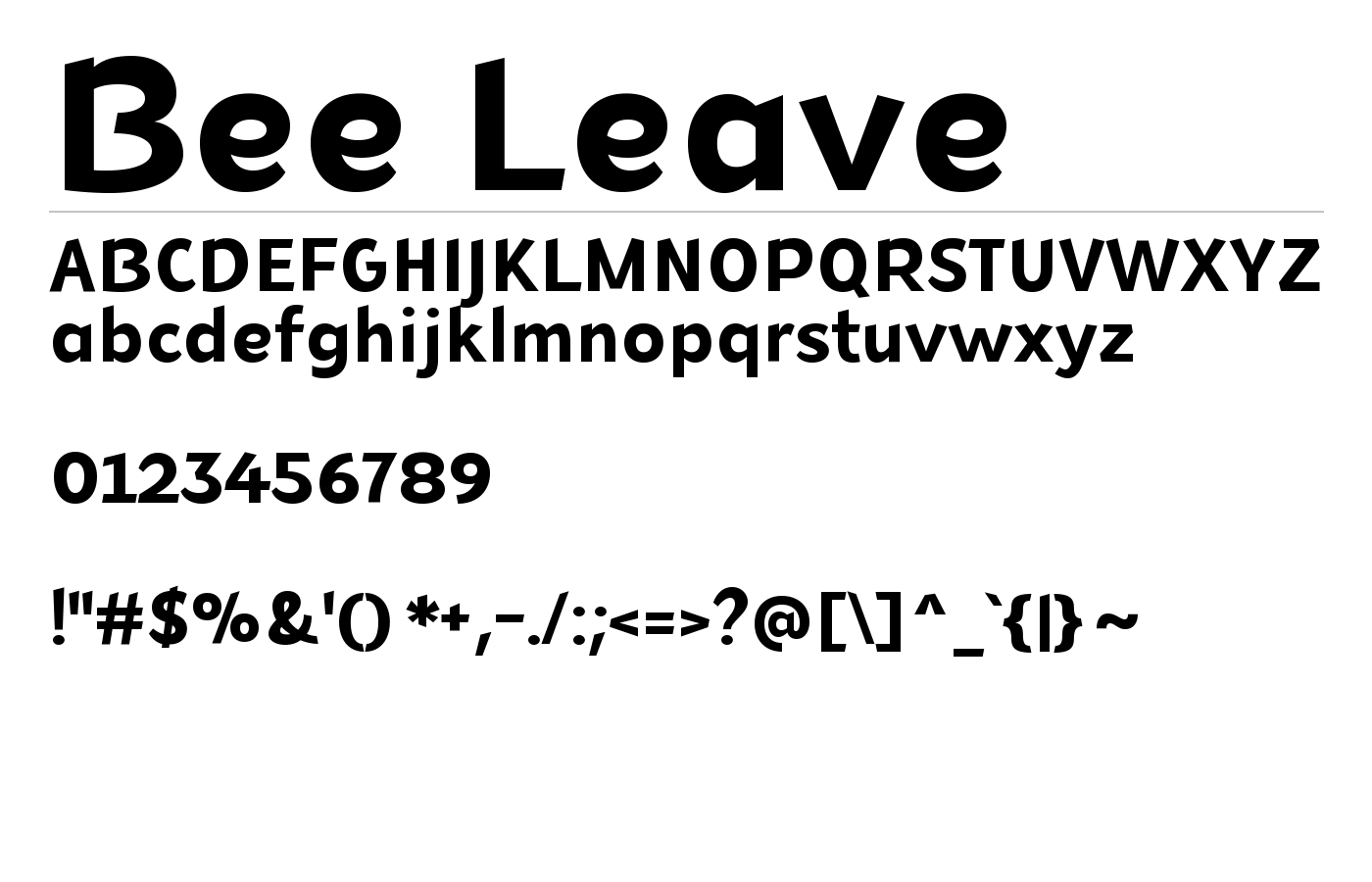
Bee Leave is a bold sans serif font with a playful, slightly quirky character, featuring rounded edges and unique letter shapes that add personality without sacrificing clarity. Its strong, friendly feel makes it ideal for eye-catching headlines, logos, and branding that seek a modern yet approachable vibe. This font works well where a distinctive and confident style is needed to engage and delight a broad audience.
| Designer | Misti's Fonts |